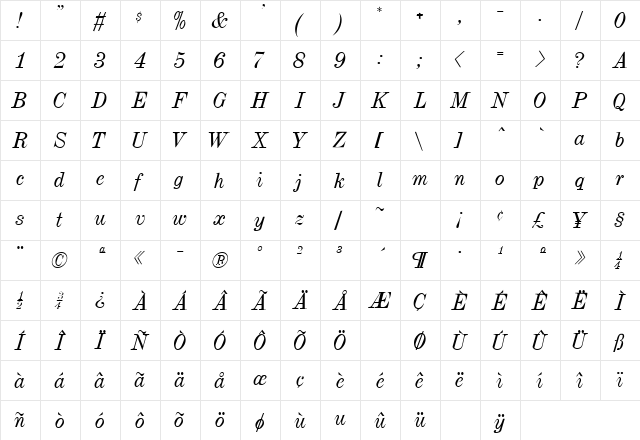
DubielItalic Italic
Design Context for DubielItalic Typeface
DubielItalic offers clean, dependable letterforms without strong stylistic allegiance, making it a practical choice for designers who need flexibility. The dynamic lean of this cut emphasises speed and emphasis in any layout.
Pro Tip: Try DubielItalic for annotation and caption copy alongside an upright companion — the contrast in angle creates a dynamic but ordered typographic system.